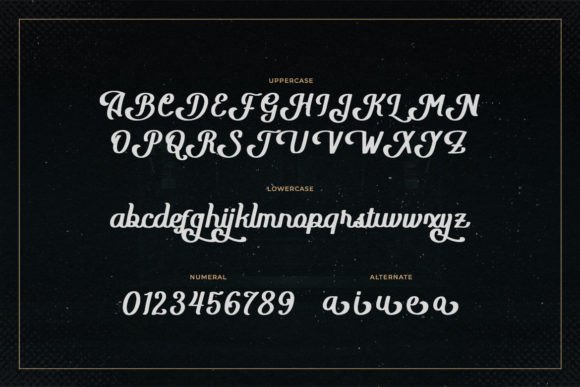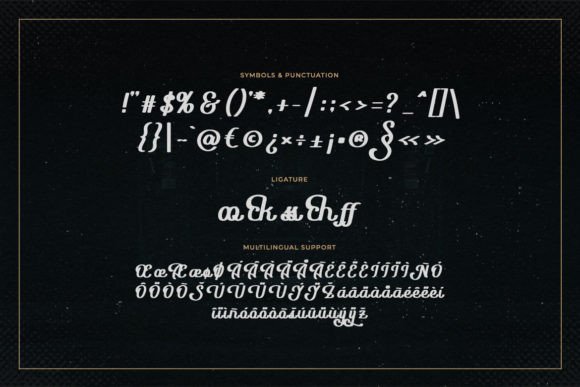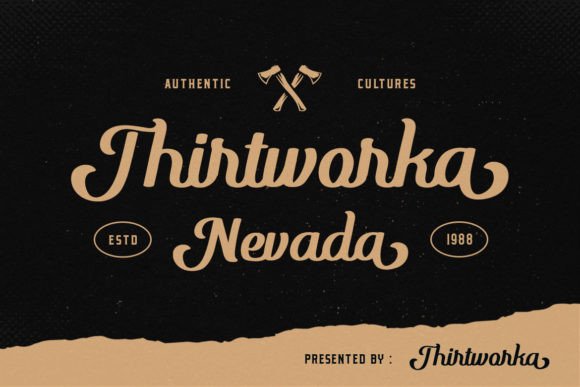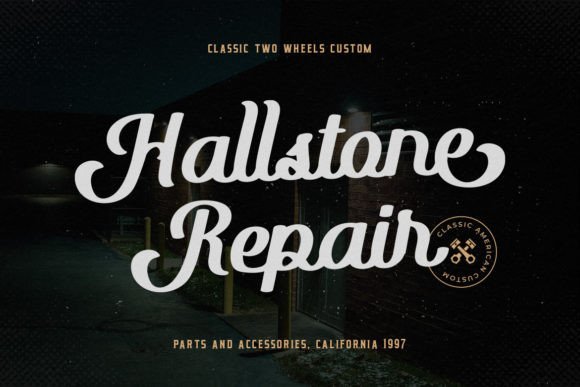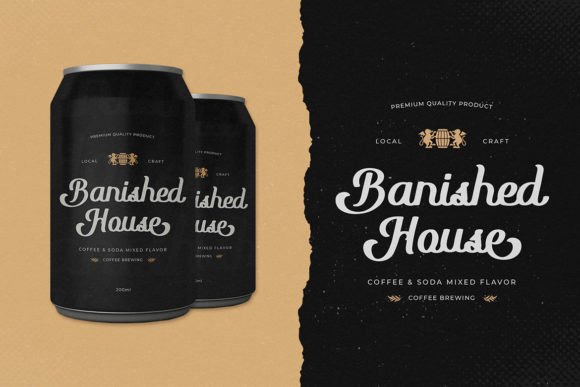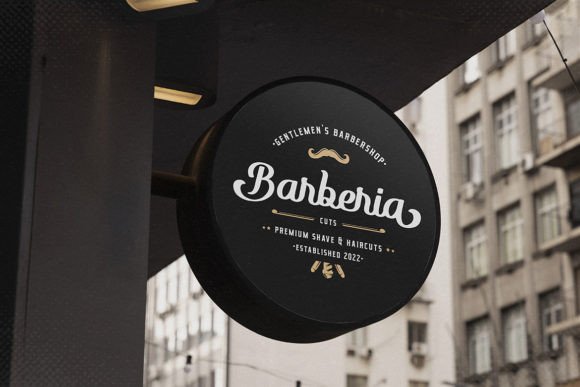
Introducing Blacklight Font: A Vintage Script Font for Creative Projects
Are you a designer or crafter looking for a unique and stylish font to elevate your creative projects? Look no further than Blacklight Font, a vintage script font that is perfect for a wide range of applications. From logos and headings to coffee shops and vintage restaurants, Blacklight Font is a versatile and eye-catching choice that is sure to make your designs stand out.
What is Blacklight Font?
Blacklight Font is a vintage script font that is inspired by the classic signage and typography of the past. With its elegant and cursive lines, this font is reminiscent of a bygone era and is sure to add a touch of nostalgia and sophistication to any design. Whether you’re looking to create a logo, heading, or signage, Blacklight Font is a great choice for any project that requires a unique and stylish font.
Uses for Blacklight Font
Blacklight Font is a versatile font that can be used for a wide range of purposes, including:
- Logos: Create a unique and memorable logo for your business or brand with Blacklight Font.
- Headings: Add a touch of elegance and sophistication to your headings and titles with Blacklight Font.
- Coffee Shops: Create a vintage and nostalgic feel for your coffee shop or cafe with Blacklight Font.
- Vintage Restaurants: Add a touch of classic style to your restaurant’s signage and branding with Blacklight Font.
- Letterhead: Create a professional and stylish letterhead with Blacklight Font.
- Signage: Use Blacklight Font for signage, including store signs, directional signs, and more.
- Labels: Create custom labels for your products or packaging with Blacklight Font.
- News: Use Blacklight Font for news headlines, articles, and other publications.
- Posters: Create eye-catching posters with Blacklight Font.
- Badges: Design custom badges with Blacklight Font for events, conferences, and more.
Why Choose Blacklight Font?
There are many reasons why Blacklight Font is a great choice for designers and crafters, including:
- Unique and stylish: Blacklight Font is a one-of-a-kind font that is sure to make your designs stand out.
- Vintage feel: Blacklight Font has a classic and nostalgic feel that is perfect for designs that require a touch of elegance and sophistication.
- Versatile: Blacklight Font can be used for a wide range of purposes, from logos and headings to signage and labels.
Tips for Using Blacklight Font
Here are a few tips for using Blacklight Font in your designs:
- Use it sparingly: Blacklight Font is a bold and eye-catching font, so use it sparingly to avoid overwhelming your design.
- Pair it with other fonts: Blacklight Font pairs well with other fonts, so experiment with different combinations to find the perfect look for your design.
- Adjust the size and color: Adjust the size and color of Blacklight Font to fit your design and make it stand out.
Blacklight Font is a unique and stylish vintage script font that is perfect for designers and crafters looking to add a touch of elegance and sophistication to their creative projects. With its versatile uses and easy-to-use design, Blacklight Font is a great choice for anyone looking to create eye-catching and memorable designs. Whether you’re creating a logo, heading, or signage, Blacklight Font is sure to make your designs stand out.